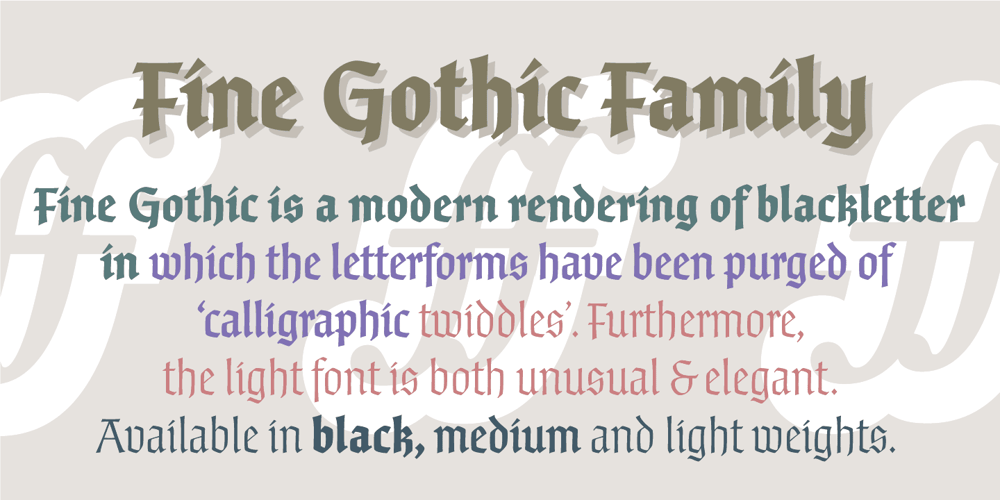
Fine Gothic
Fine Gothic font
Fine Gothic Font Family was designed by Michael Harvey, Andy Benedek and published by Fine Fonts. Fine Gothic contains 3 styles and family package options. Fine Gothic was developed over several years, and was partly inspired by the blackletter fonts of the great 20th century calligrapher and lettering designer, Rudolf Koch. Although blackletter has many historical and cultural associations with Germany, and has been used in the English-speaking world excessively on the mastheads of newspapers or the facades of antique shops, contemporary designers should not be deterred from adding these vigorous letterforms to their repertoire. Conventional blackletter tends towards the heavier weights, which makes the Light weight of Fine Gothic something of a delight and a rarity.